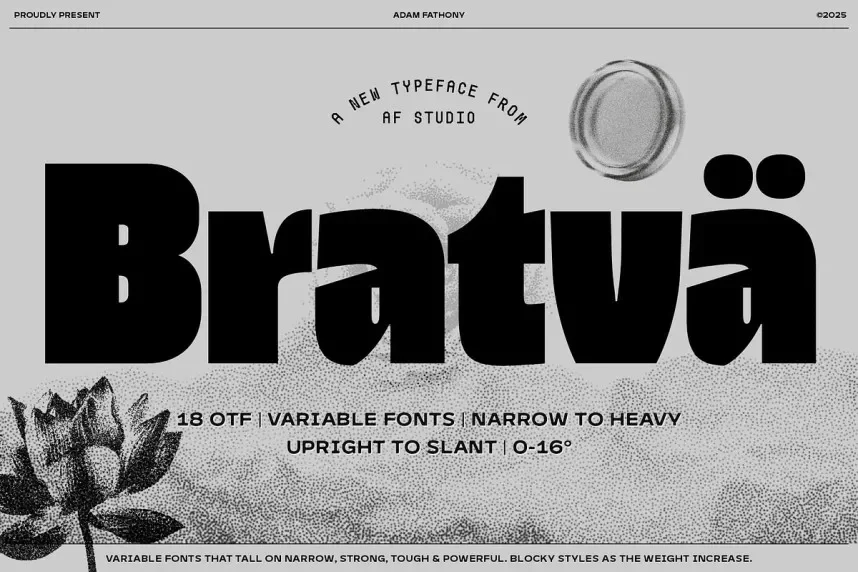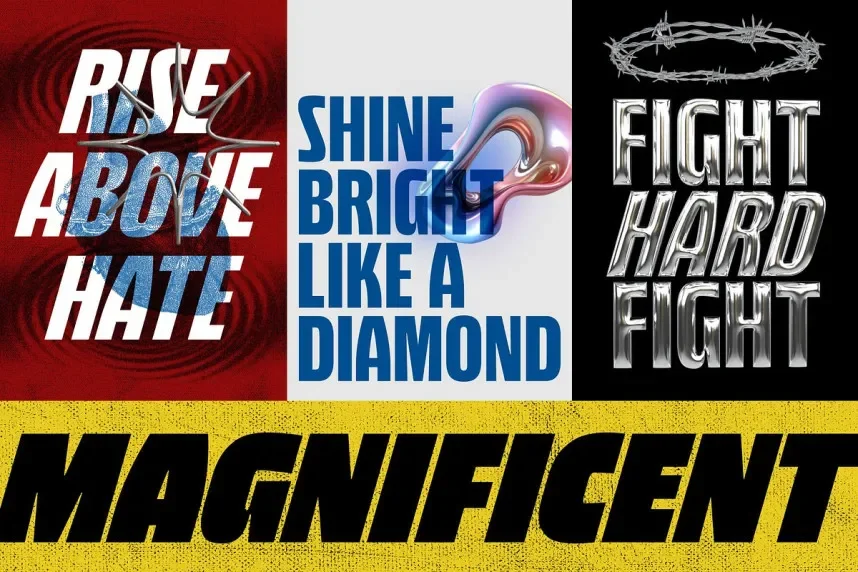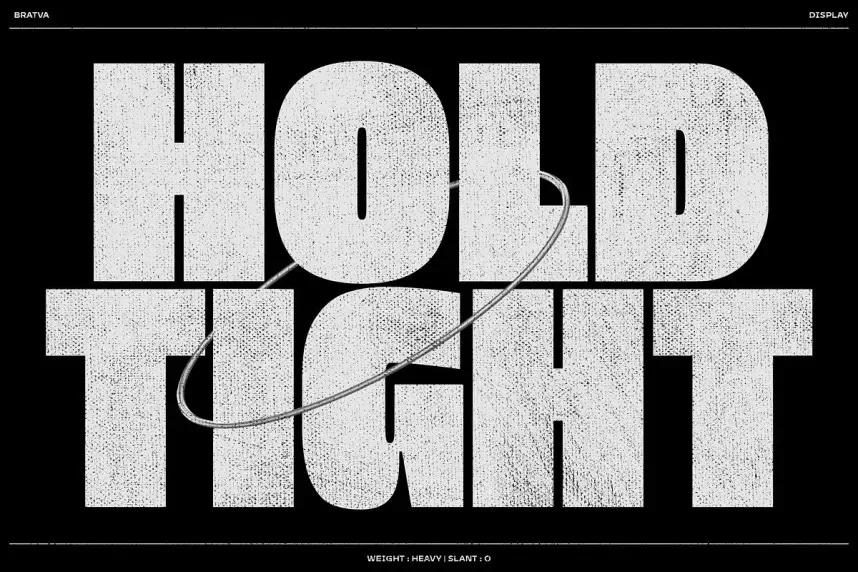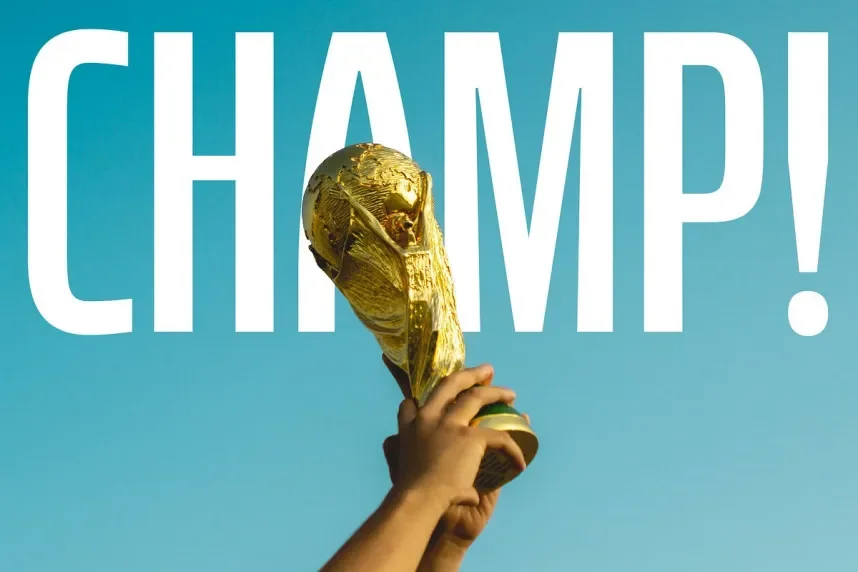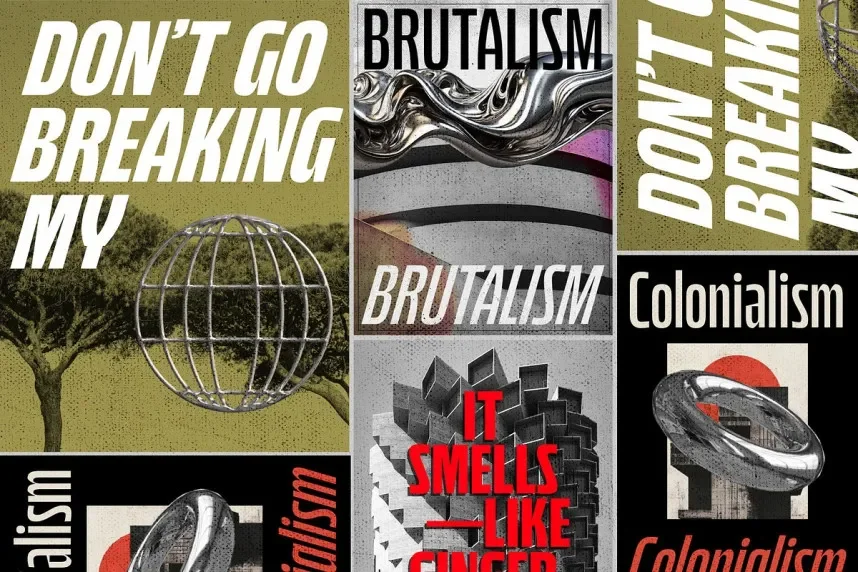
Bratva Font helps convey strength and authority in visual design. Thin or neutral fonts often fail in branding that requires bold presence.
Bratva is a display typeface with thick strokes, tight spacing, and solid letter construction. The forms emphasize weight and stability, making it effective for short, impactful text.